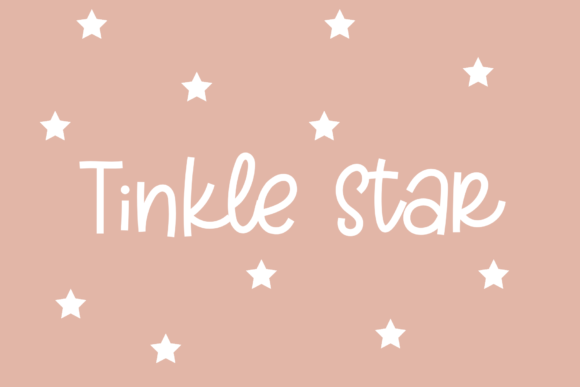
Looking to add a touch of whimsy and charm to your design projects? Look no further than the Tinkle Star Font! This adorable script font is perfect for any project that needs a playful energy and a dash of sweetness.
Whether you're creating greeting cards, invitations, social media graphics, or branding materials, our cute font will elevate your designs to a whole new level. Its playful curves and delightful details are guaranteed to make your work stand out from the crowd.
Imagine the smiles that will light up your audience's faces when they see the delightful Tinkle Star Font in your designs. It's like sprinkling a little bit of magic on your projects, instantly capturing attention and creating a lasting impression.
With its versatility, this font can be used for various purposes. Want to create a captivating logo? Our Tinkle Star Font will add a touch of elegance and playfulness that will make your brand unforgettable. Need to create eye-catching social media graphics? This font will bring your messages to life and make them impossible to ignore.